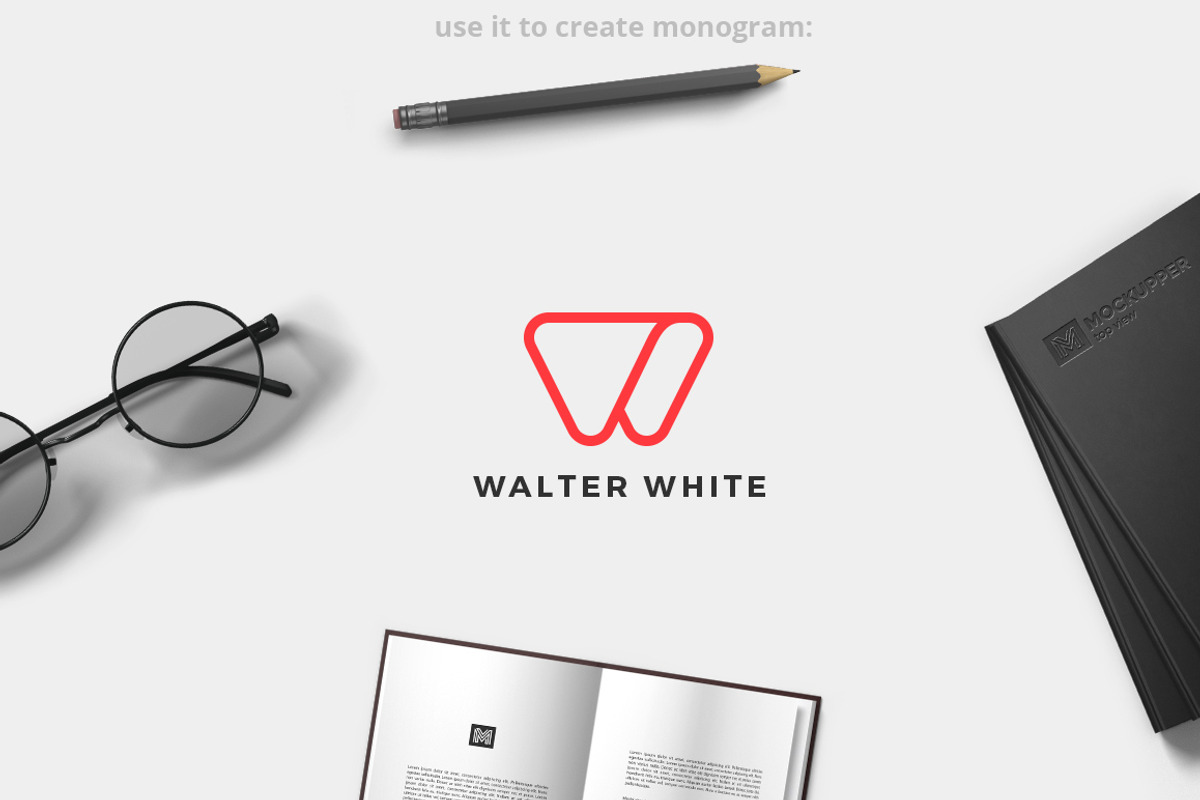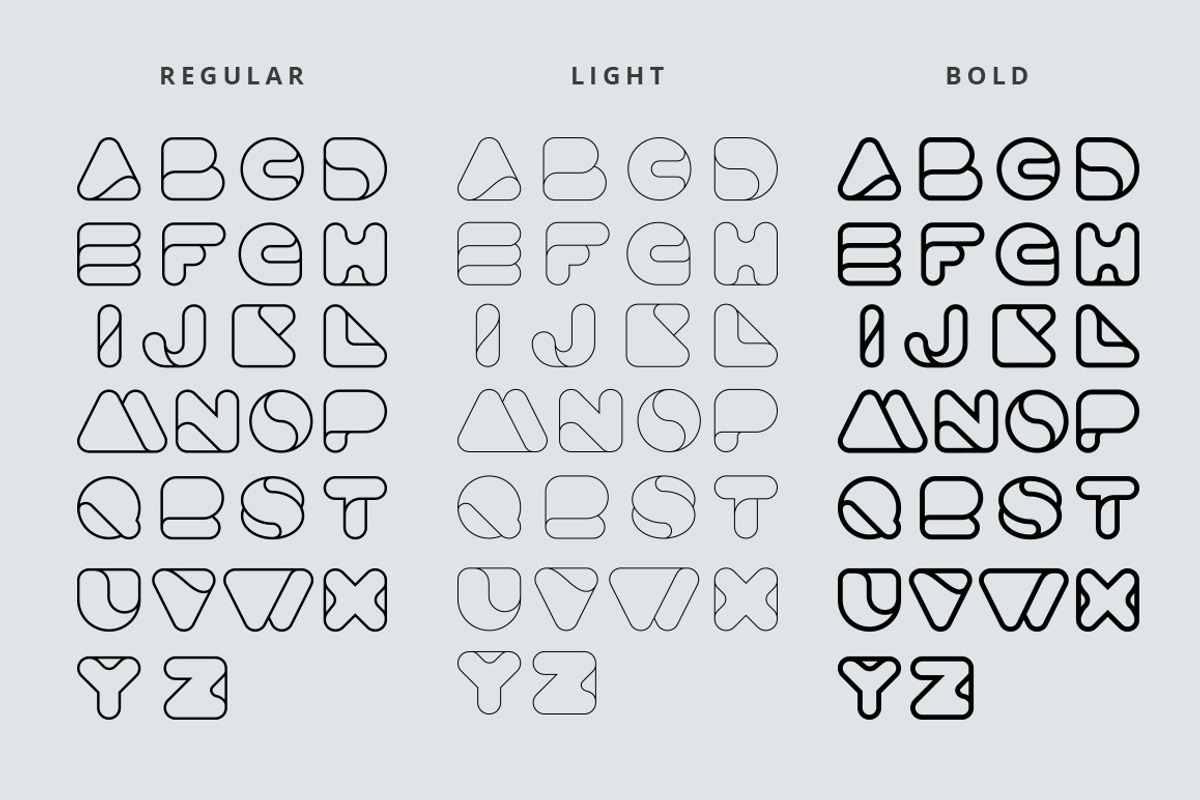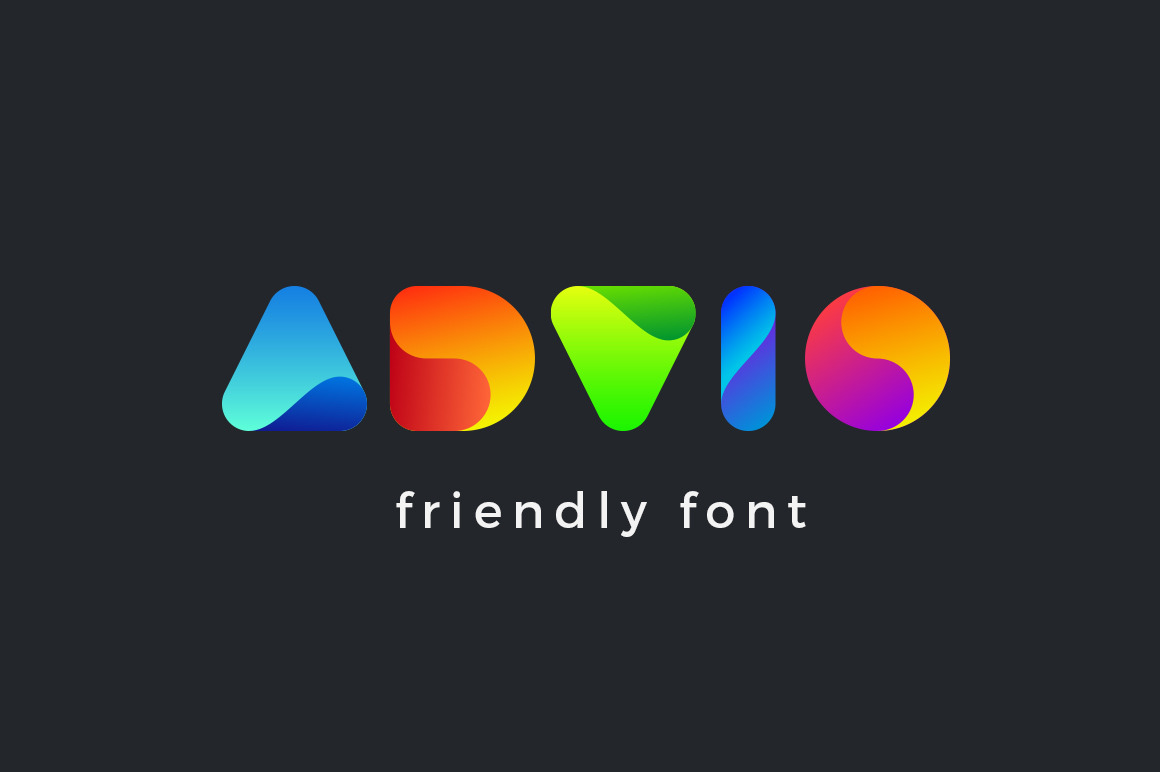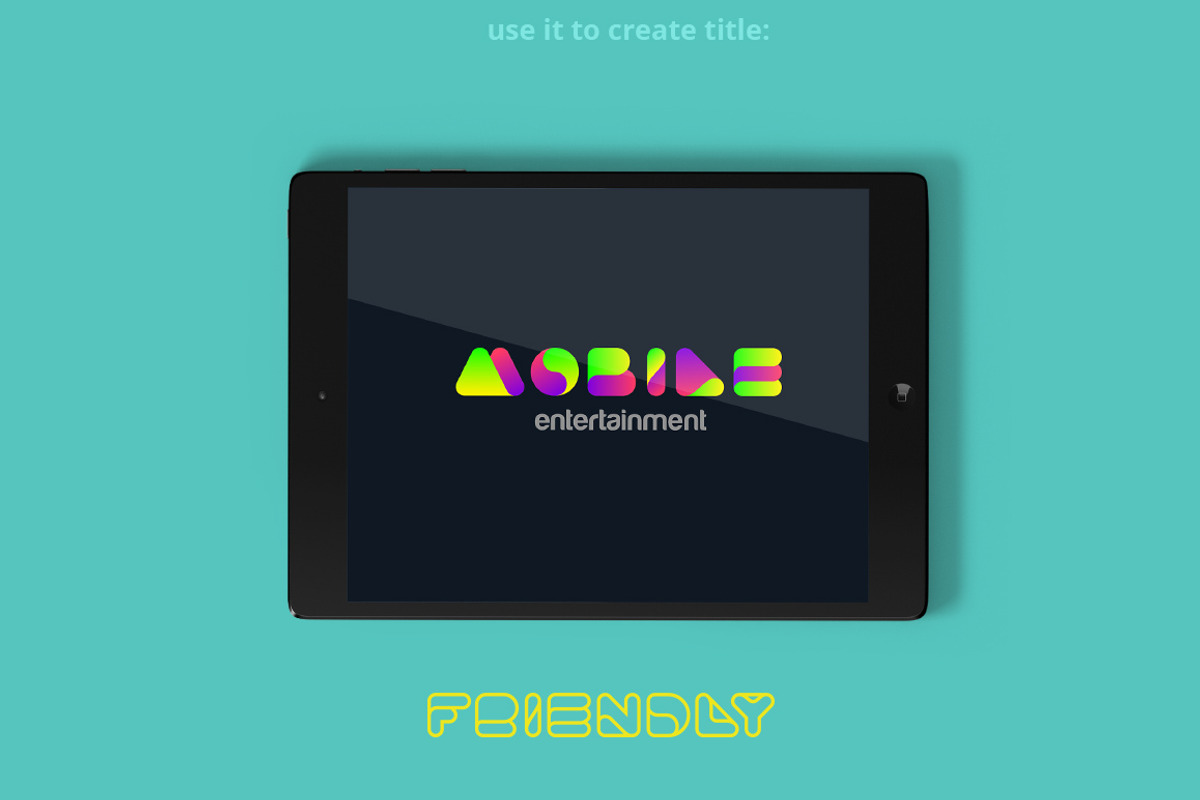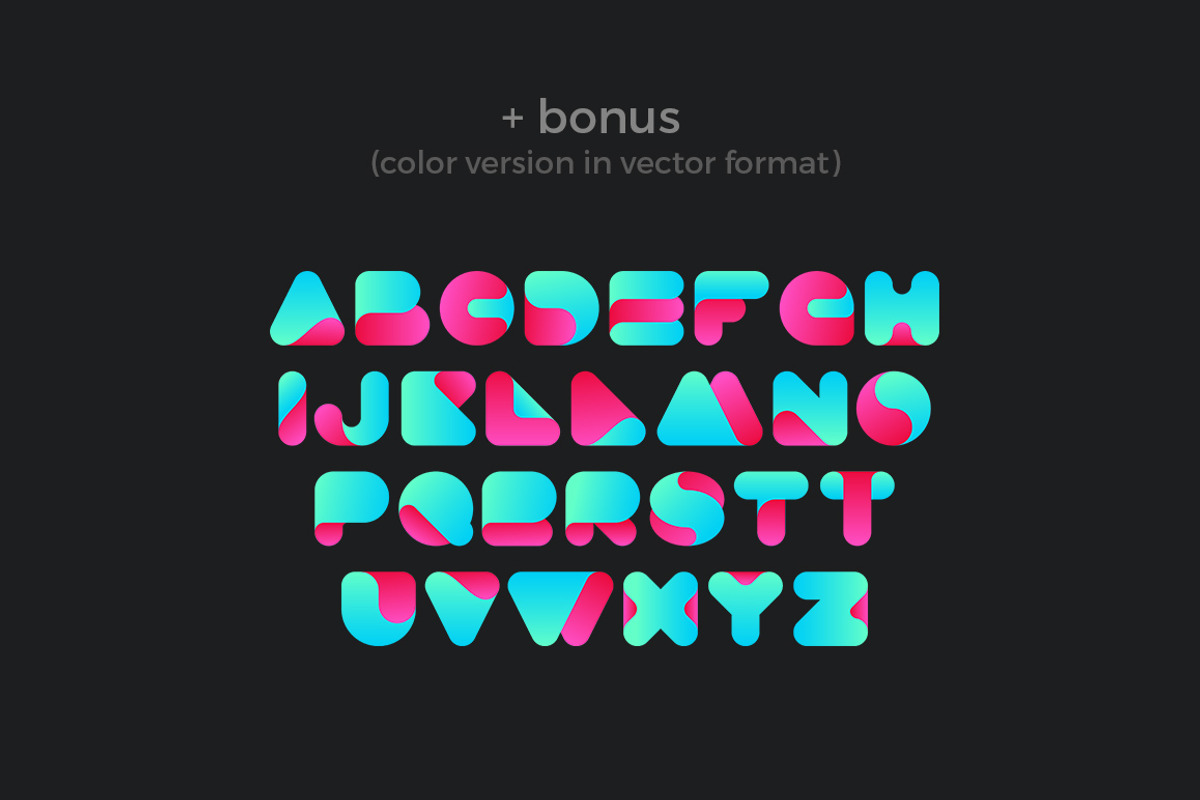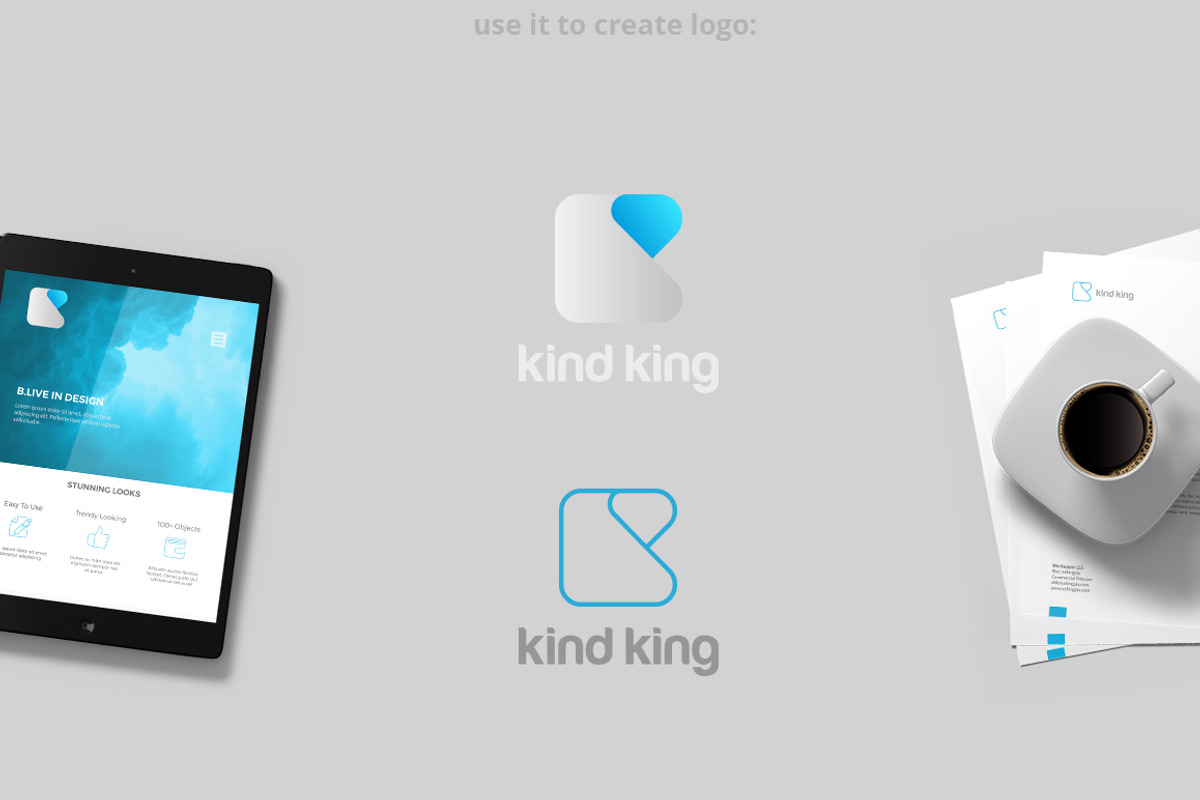
Advio friendly font
Advio is friendly creative font can be used as logo design and branding, titles & headers, posters & banners in such areas as high-tech, internet & computers, business innovations, sport & entertainment etc.